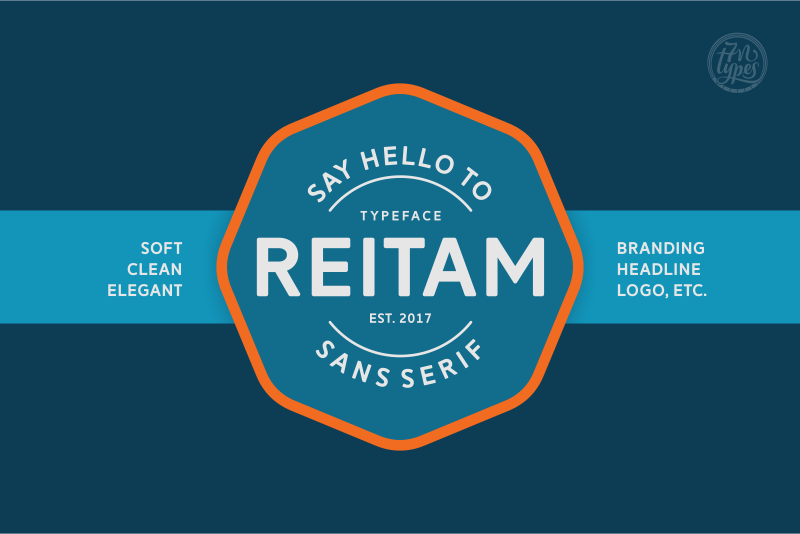
Reitam is a (super) clean sans serif font. The font features soft, rounded corners which makes it a friendly typeface that is easy on the eyes. Reitam is (super)legible in different formats. It doesn’t matter if you want to use it for a large bold headline or small body text, on both web or print the font will look great in all sizes. It is FREE for personal use. I appreciate you to buy me a cup of coffee as a support in creating more free for personal use fonts, by donating as much as you wish, via my Paypal https://www.paypal.me/Situjuh or hit the donation button in this Dafont.com For ommercial use, get it exclusively only on Creative Fabrica, on this link: https://www.creativefabrica.com/product/reitam/ref/87 You may also have a look to the other fonts I created on this link: https://www.creativefabrica.com/designer/situjuh/ Contact me or visit my website https://7ntypes.com if you have any request or question. Thank for downloading and using Reitam Font. |